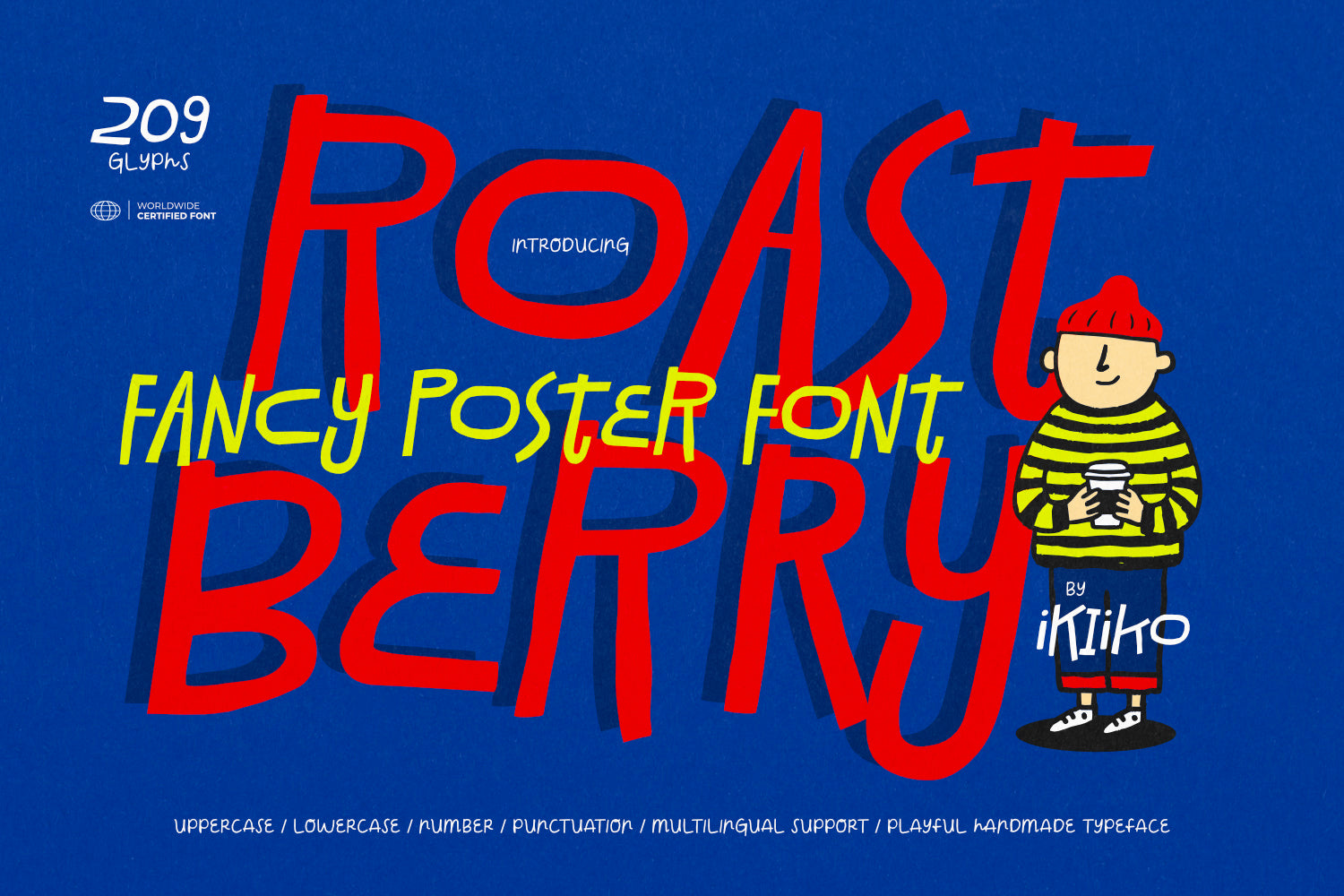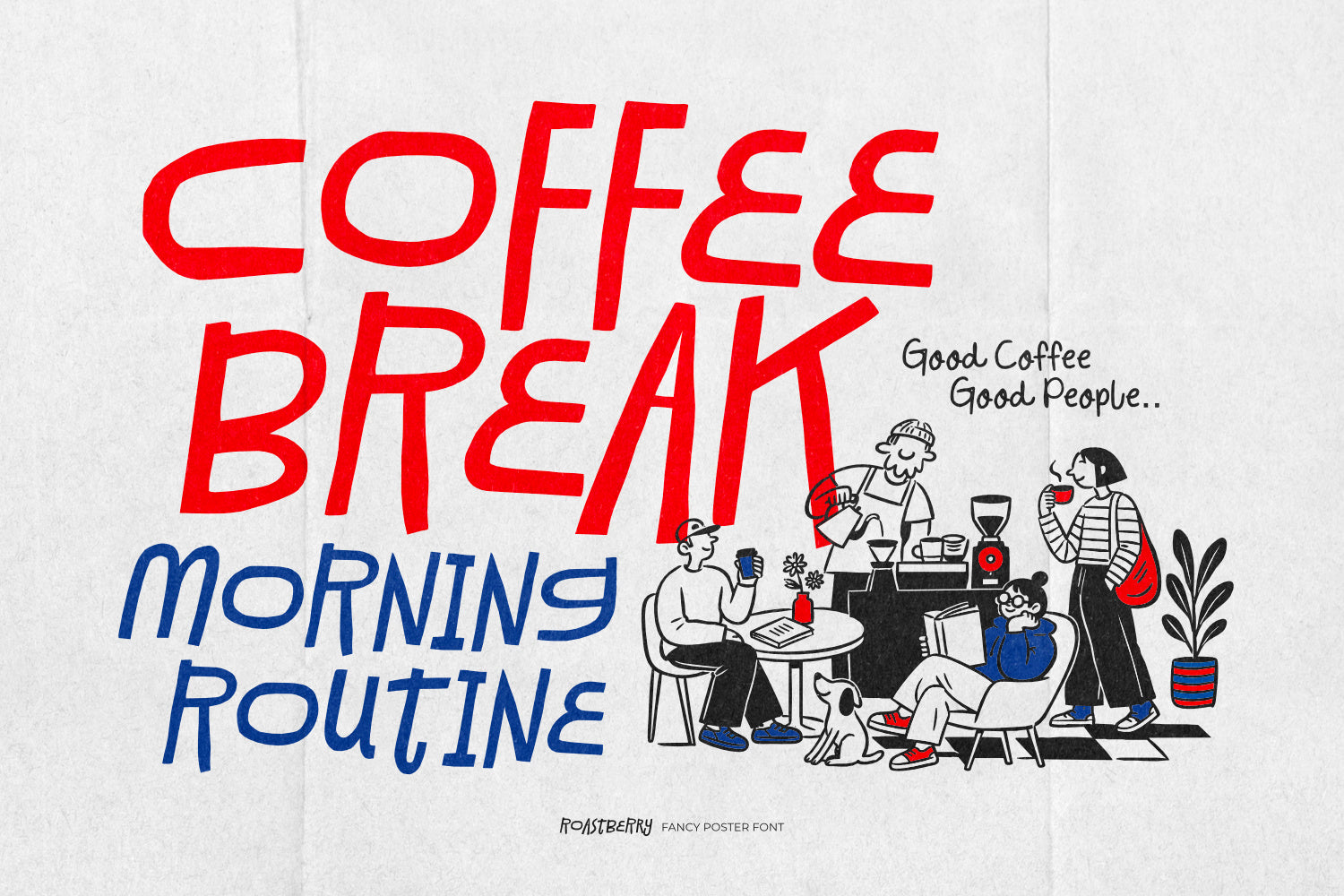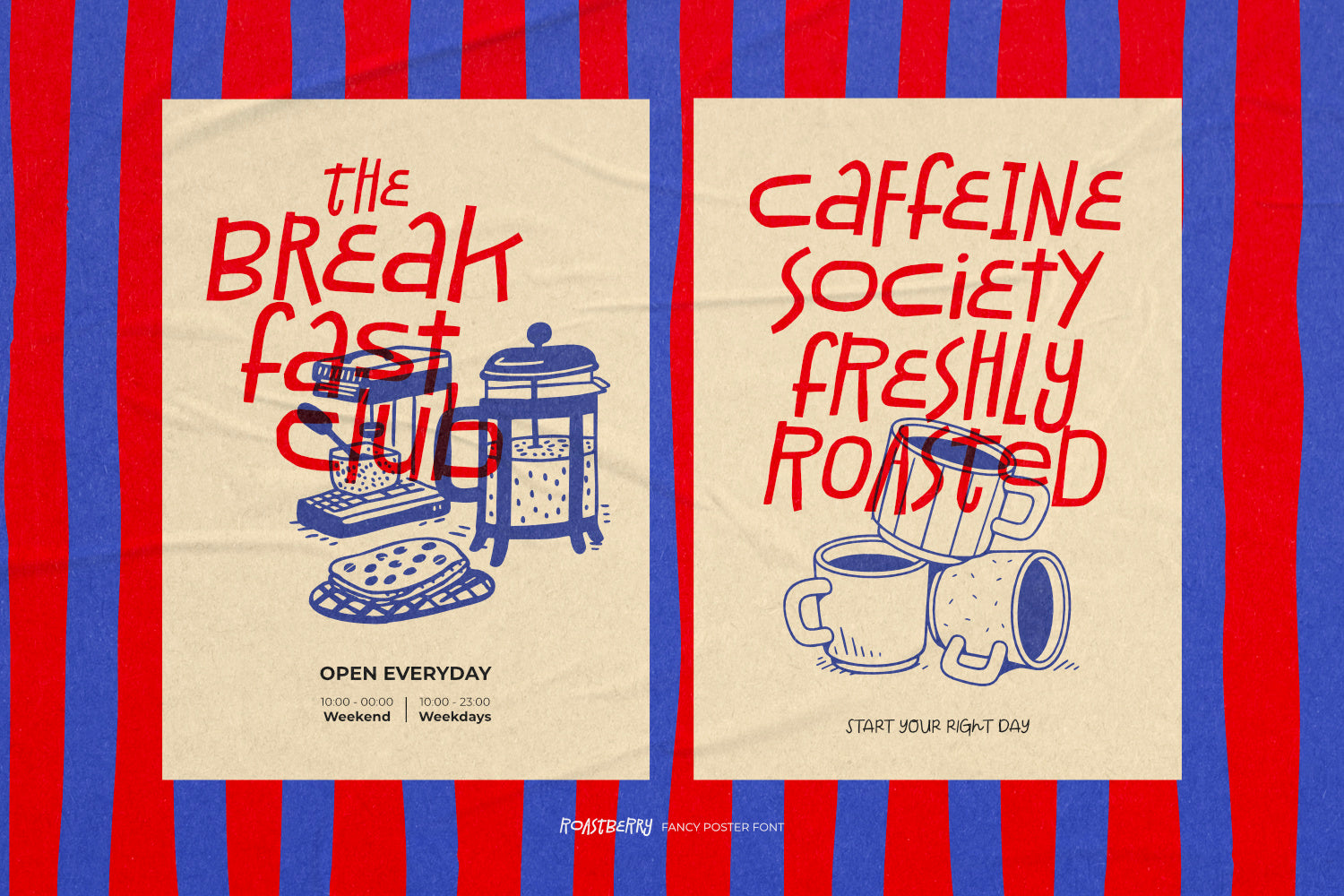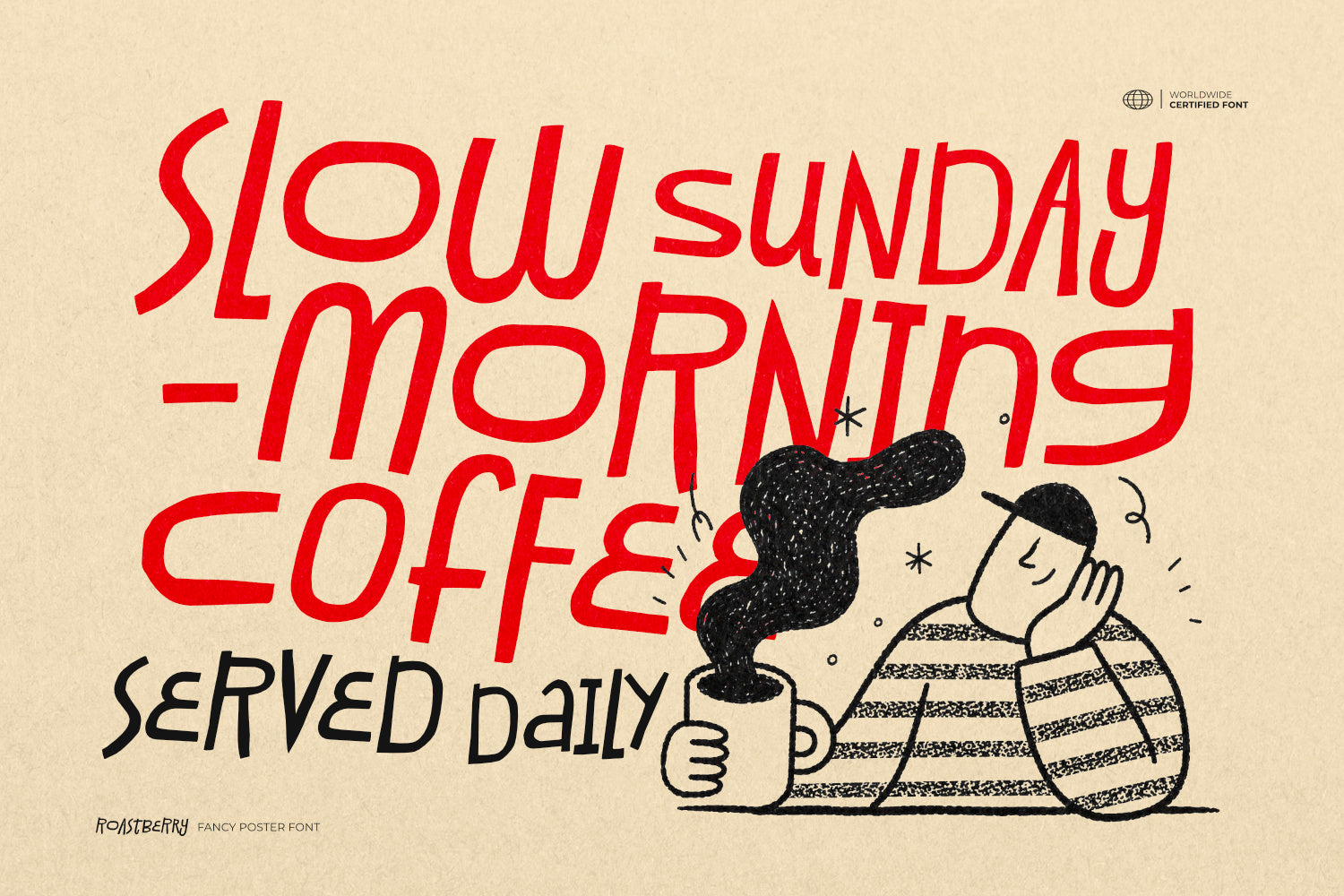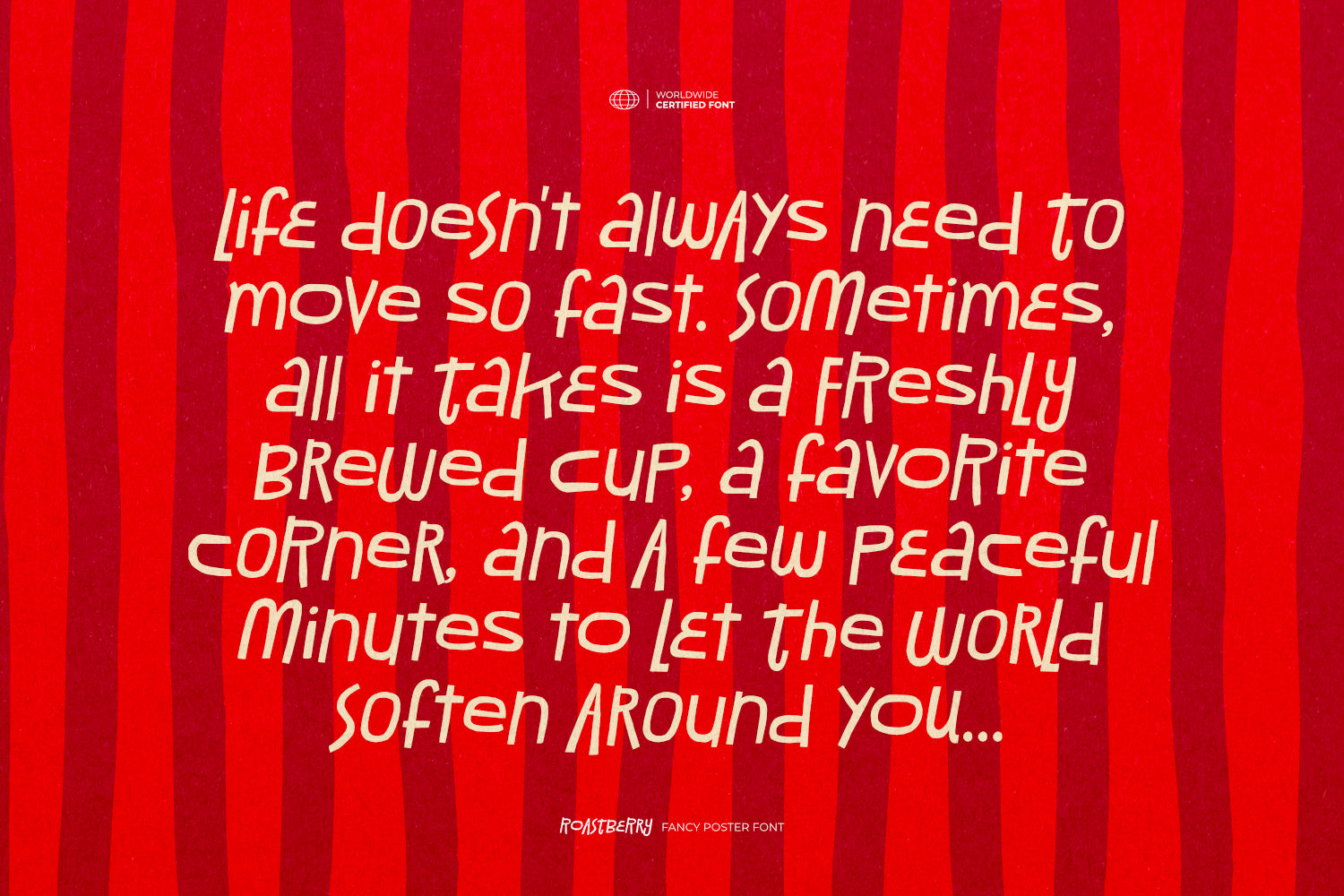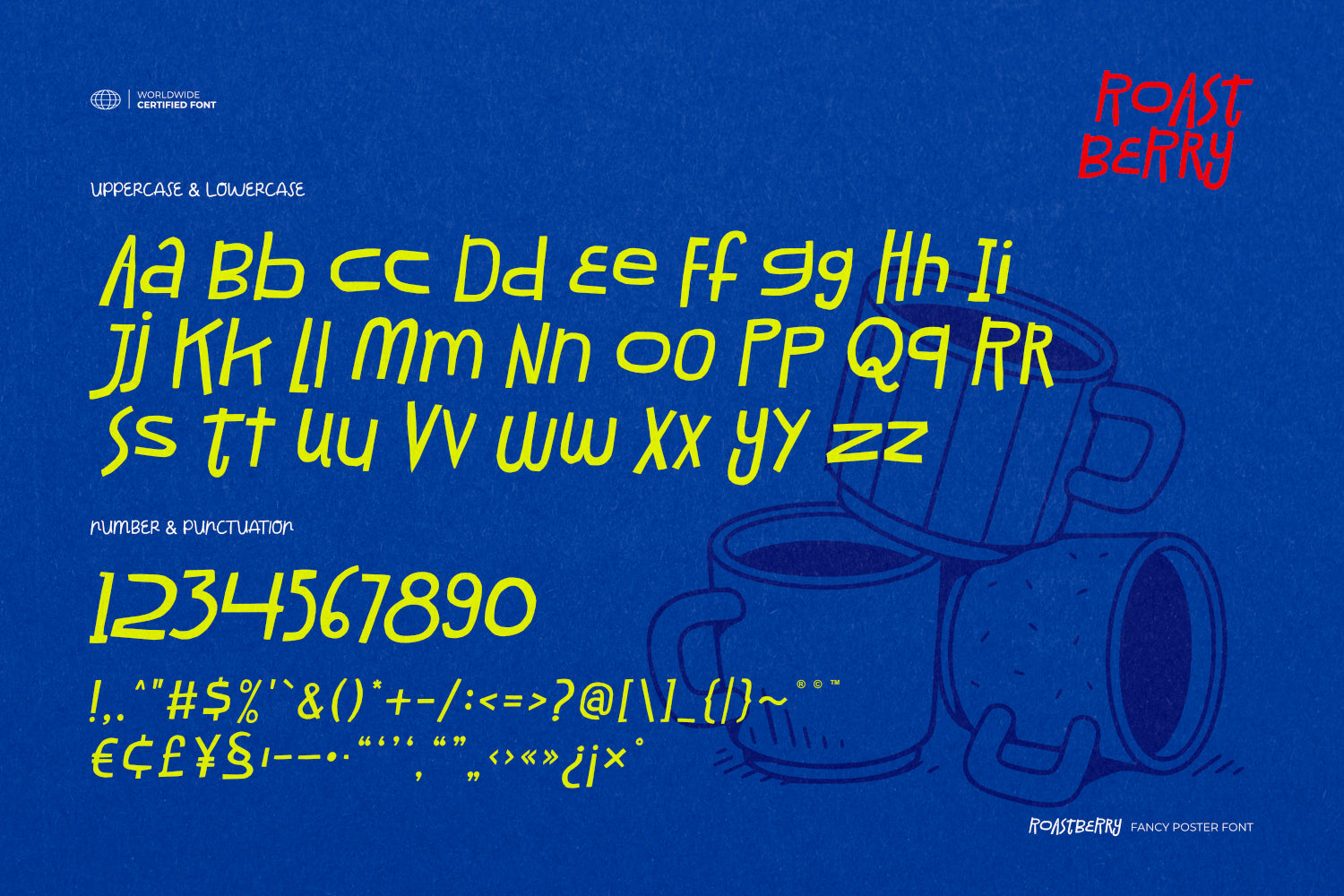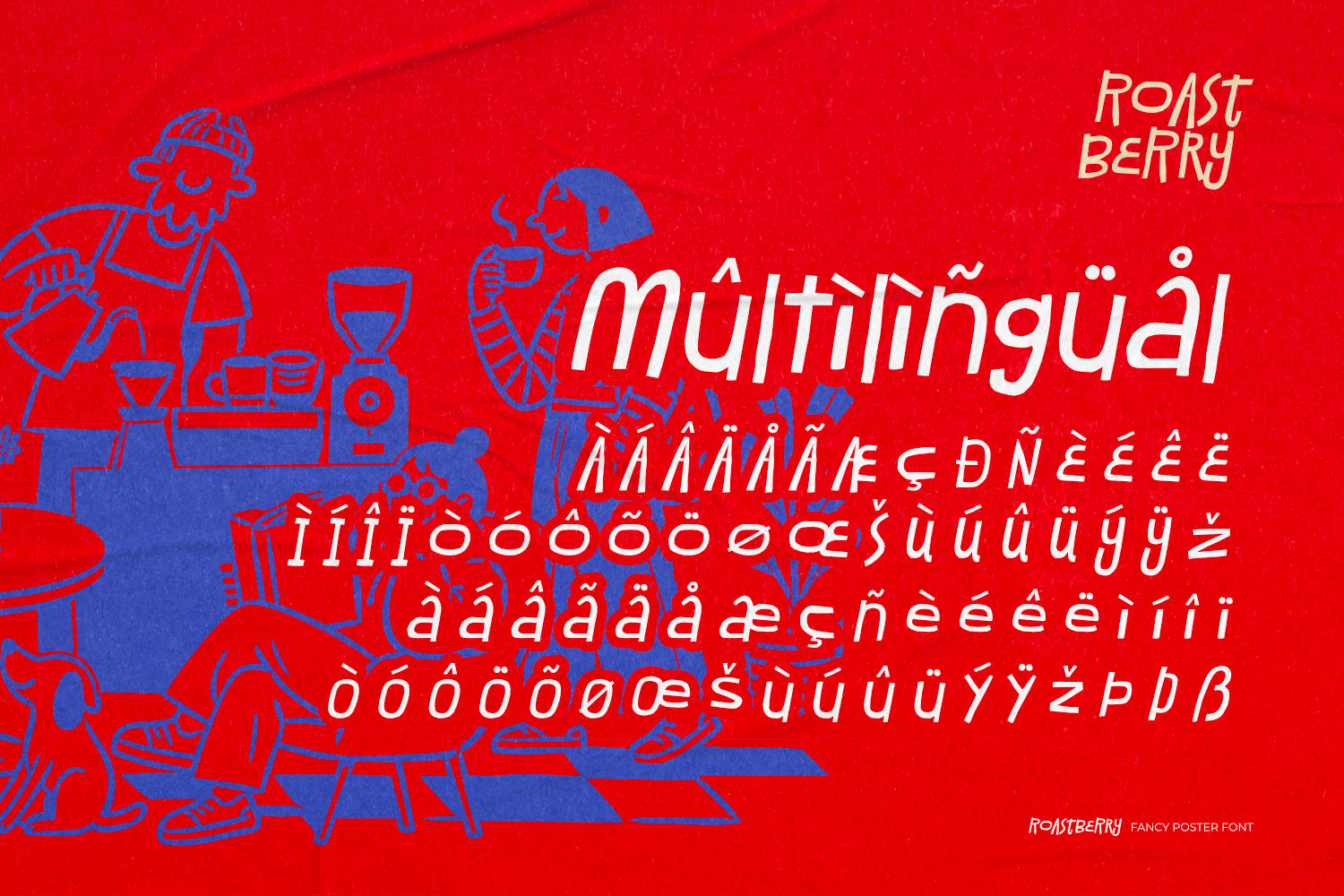
Proudly Present Roastberry - Fancy Poster Font, created by ikiiko
Turn every headline into a fearless statement with Roastberry, a handcrafted display typeface bursting with organic personality and unapologetic charm. Inspired by indie zines, handmade sign painting, and quirky editorial layouts, Roastberry blends funky, playful, and naïve-inspired letterforms into a stylish typeface that refuses to blend in. Every character feels naturally imperfect, delivering the authentic energy of hand-drawn typography while keeping your designs bold, expressive, and unforgettable.
Designed for creatives who embrace freedom over perfection, Roastberry captures the spirit of indie art, underground culture, and modern magazine aesthetics. Its tall, energetic proportions and handcrafted curves make every word feel alive. Whether you're designing eye-catching poster layouts, indie branding, café menus, packaging, children's books, social media graphics, creative campaigns, or expressive editorial headlines, Roastberry delivers a stylish handcrafted typeface with funky character, playful energy, organic flow, and authentic indie vibes. The organic strokes create a raw yet polished rhythm that instantly adds warmth, movement, and personality.
This font is perfect for posters, fashion stuff, book covers, movie titles, zines, or anything that needs a strong & expressive typeface.
:: Uppercase & Lowercase
:: Numbers & Punctuation
:: Multilingual Support